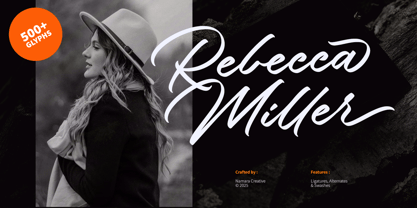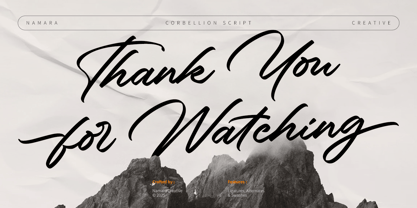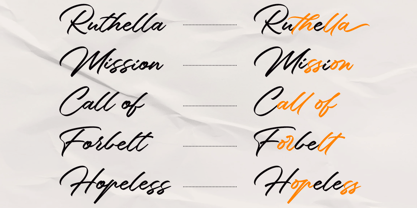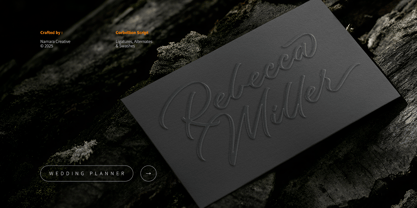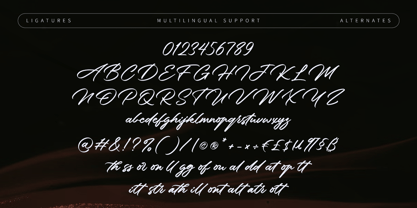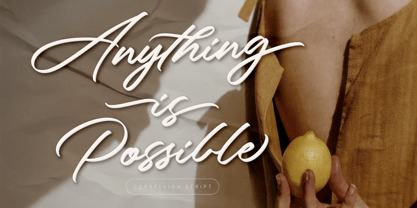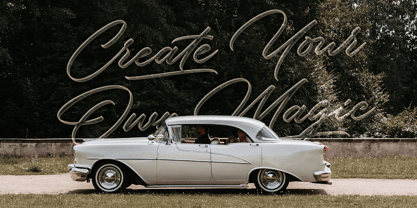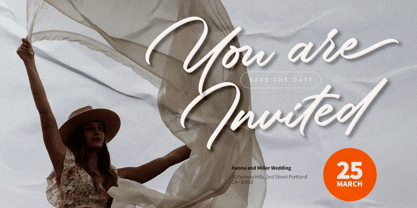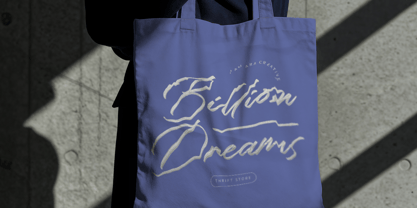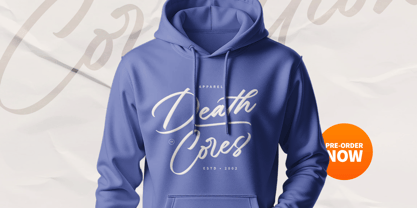
Corbellion
by Namara Creative Studio
The Corbellion Font Family was designed by Eep Apringga and published by Namara Creative Studio. Corbellion contains 1 styles.
Introducing Corbellion Script, a bold and flowing signature script font that blends modern calligraphy with timeless elegance. Designed with over 500 meticulously crafted glyphs, Corbellion Script offers a versatile typographic experience with extensive OpenType features, including ligatures, alternates, and swashes—perfect for designers who crave expressive, hand-lettered aesthetics. This font is ideal for branding, wedding invitations, fashion logos, product packaging, social media quotes, and more. Whether you’re creating a luxurious logo, a stylish tote bag, or an inspiring quote, Corbellion Script gives your text a touch of sophistication and flair. Features : - 500+ Glyphs for maximum creativity - Alternates & Swashes for stylish flourishes - Natural Ligatures for smooth, realistic strokes - Full Set: Uppercase & Lowercase, Numbers, Punctuation, Symbols - Multilingual Support Perfect For : - Signature-style logos - Wedding and event stationery - High-end fashion and beauty branding - Quotes and social media graphics - Apparel and merchandise - Editorial titles and blog headers Make your mark with Corbellion Script, Whether you’re telling a love story or building a lifestyle brand, Corbellion Script gives your design a handwritten, personalized touch that commands attention and expresses emotion.
Designers: Eep Apringga
Publisher: Namara Creative Studio
Foundry: Namara Creative Studio
Design Owner: Namara Creative Studio